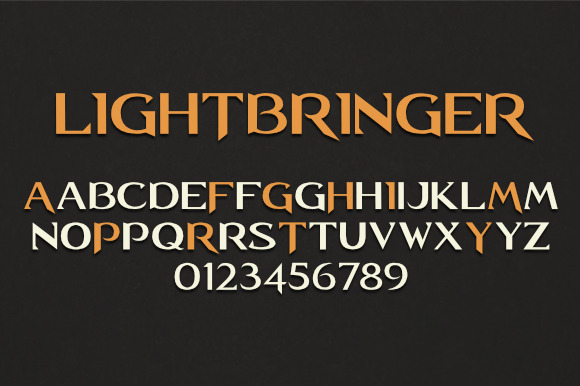
Lightbringer font
A modern all caps font with alternative characters. Looks best in large display text, but also legible in small sizes.
Ideal for rock bands, graphic novels, action films and video games.